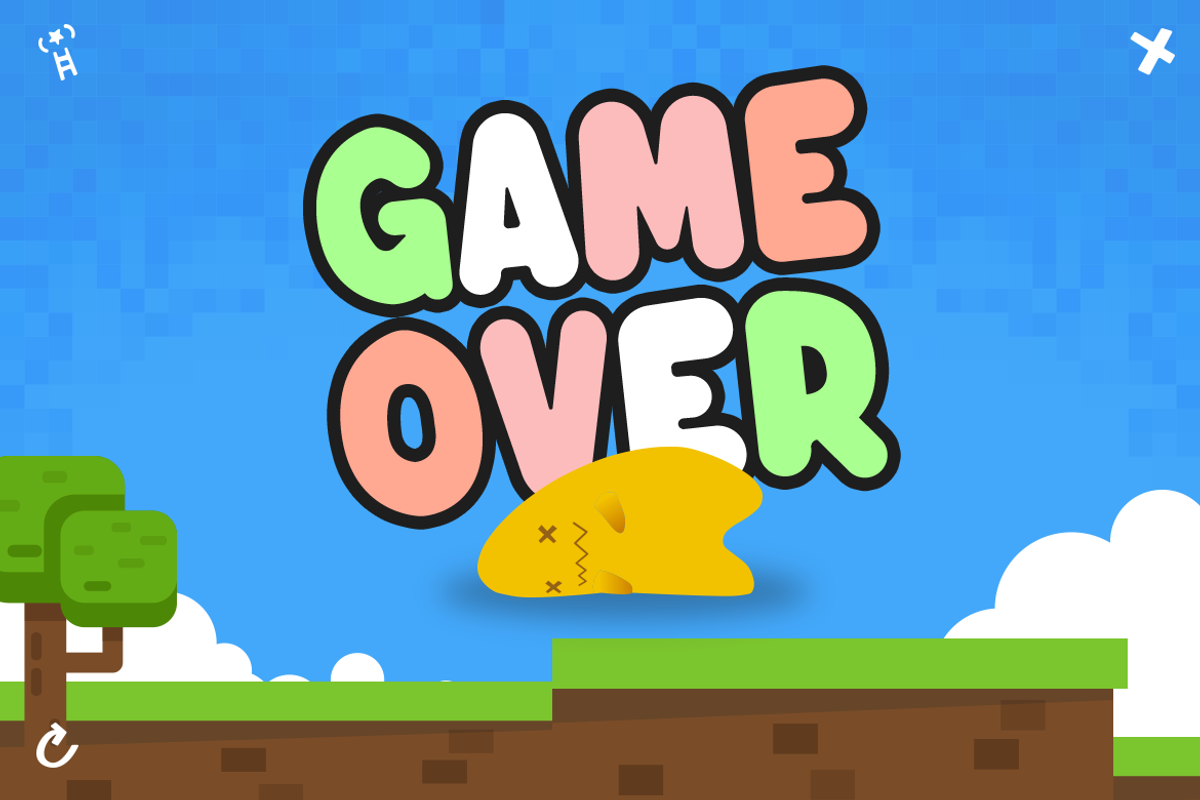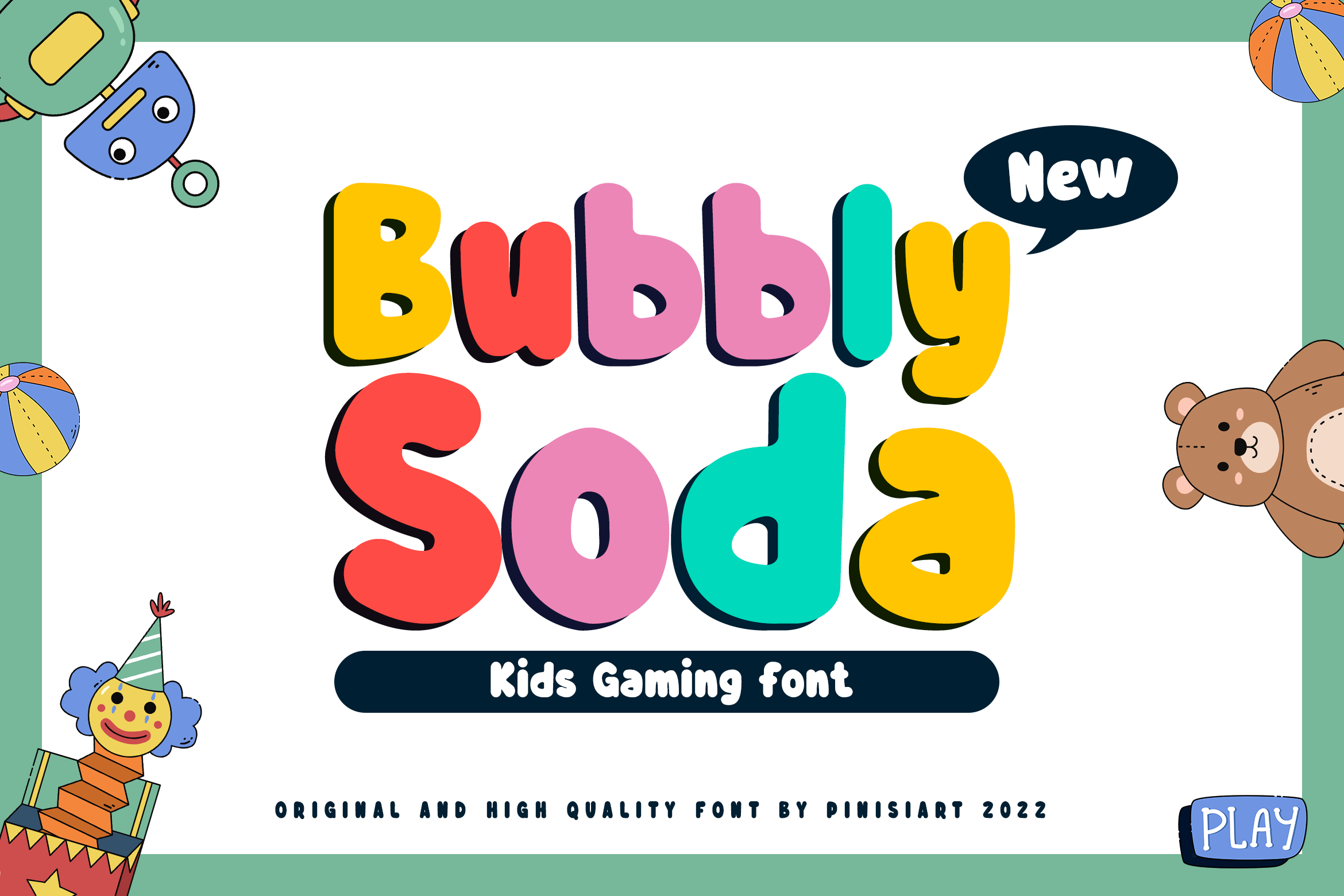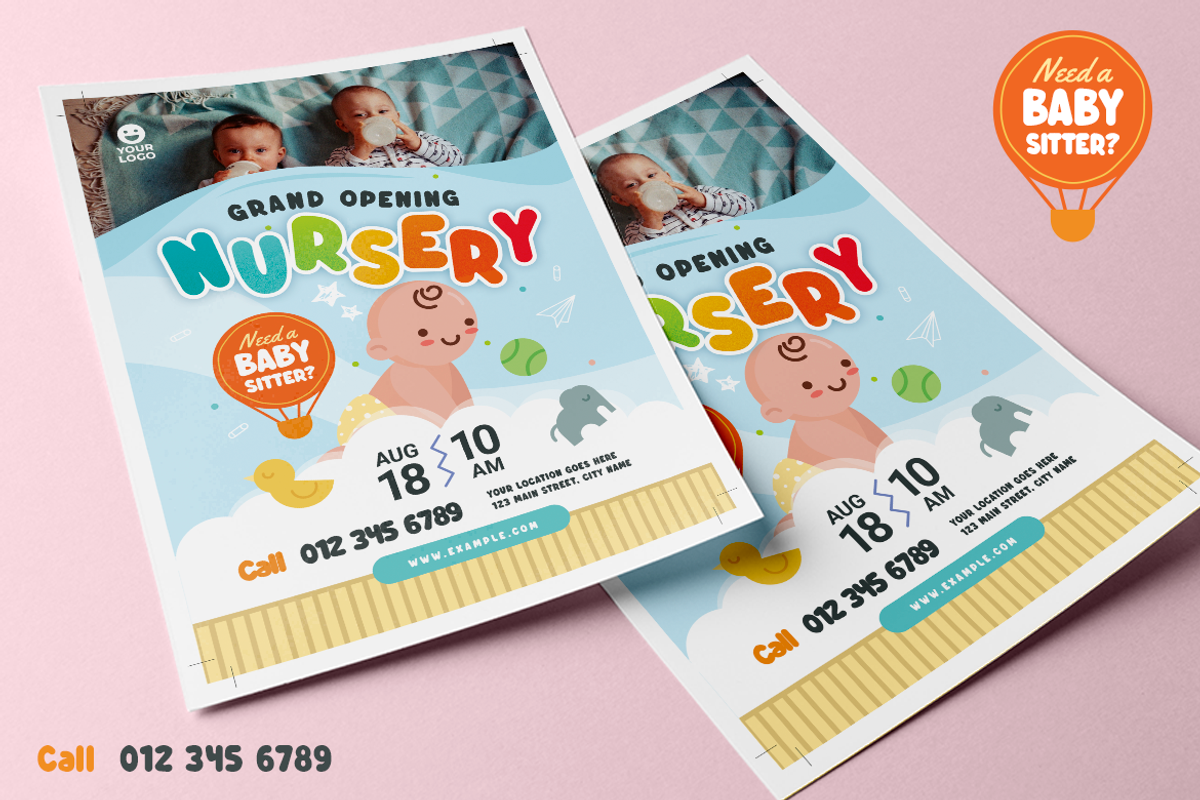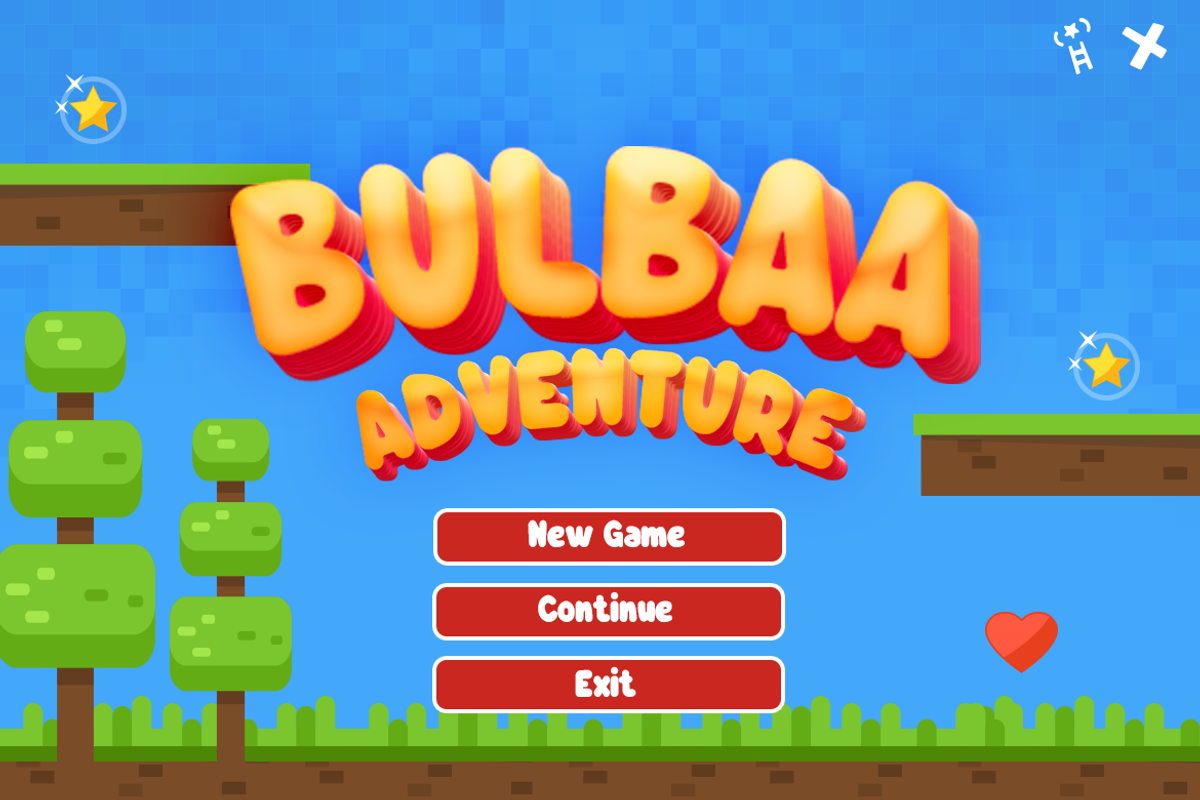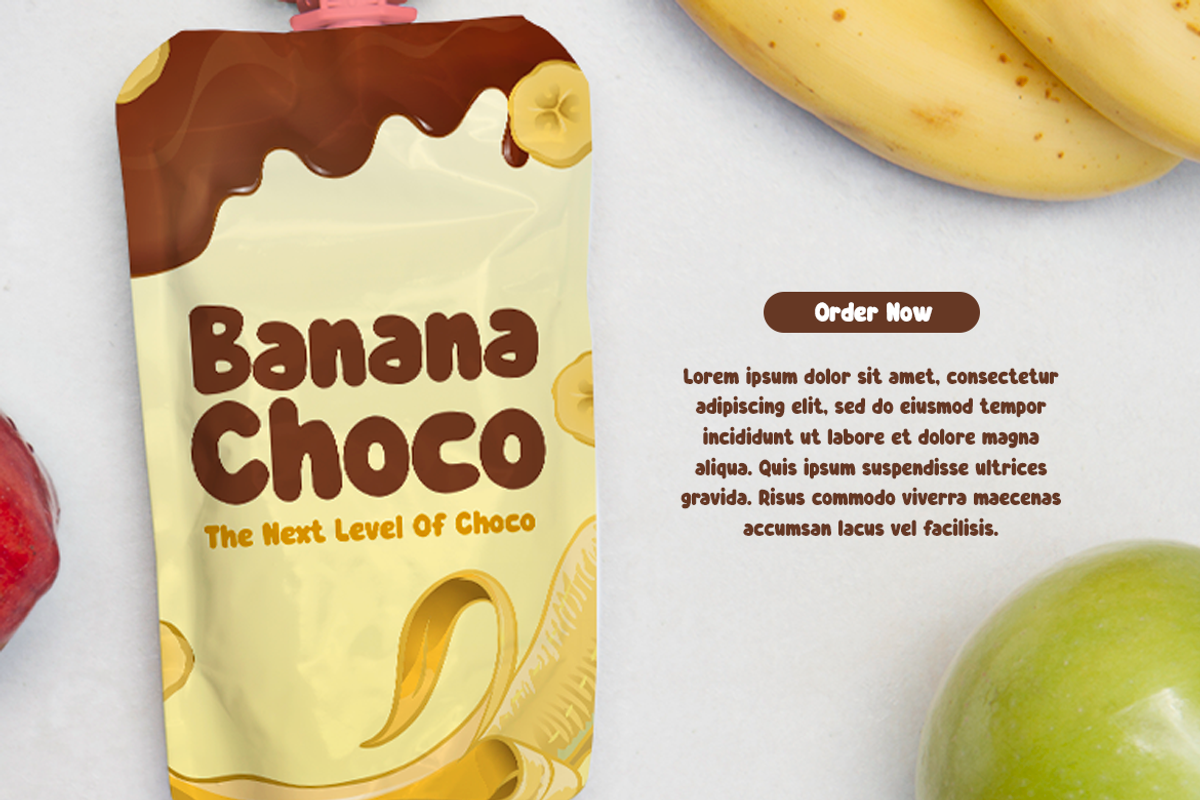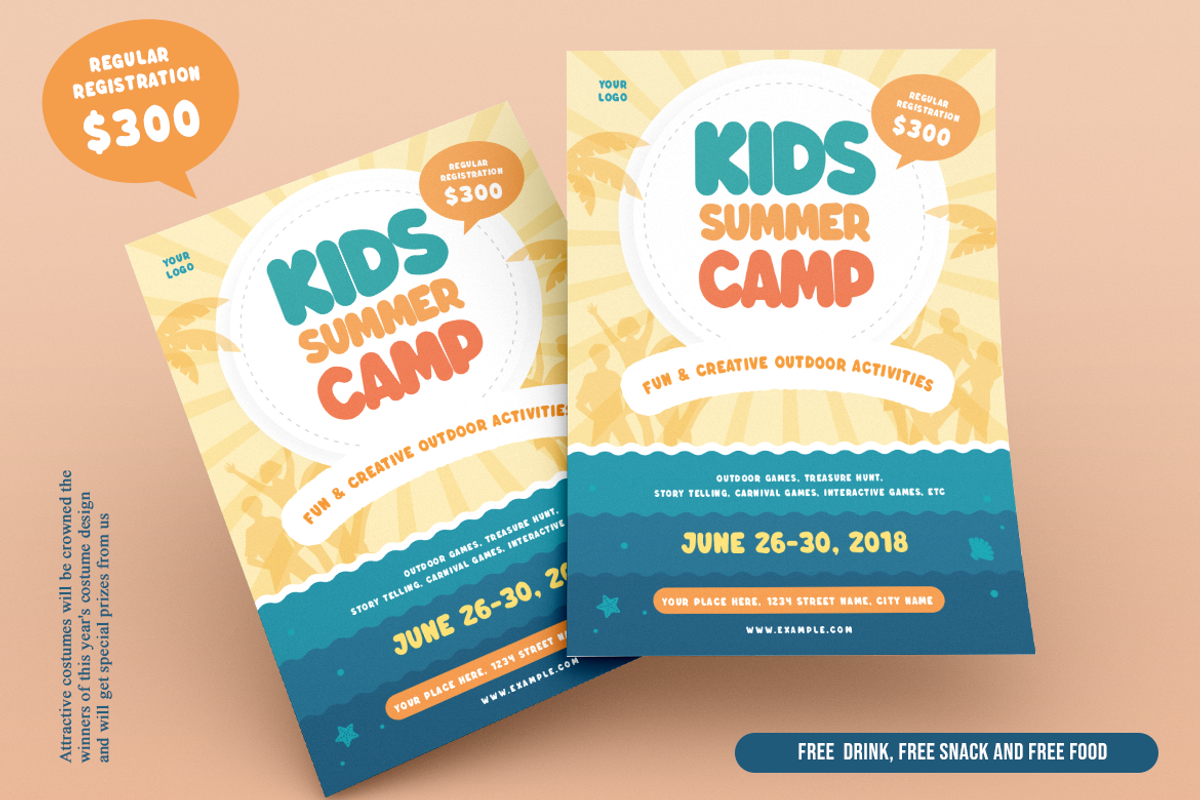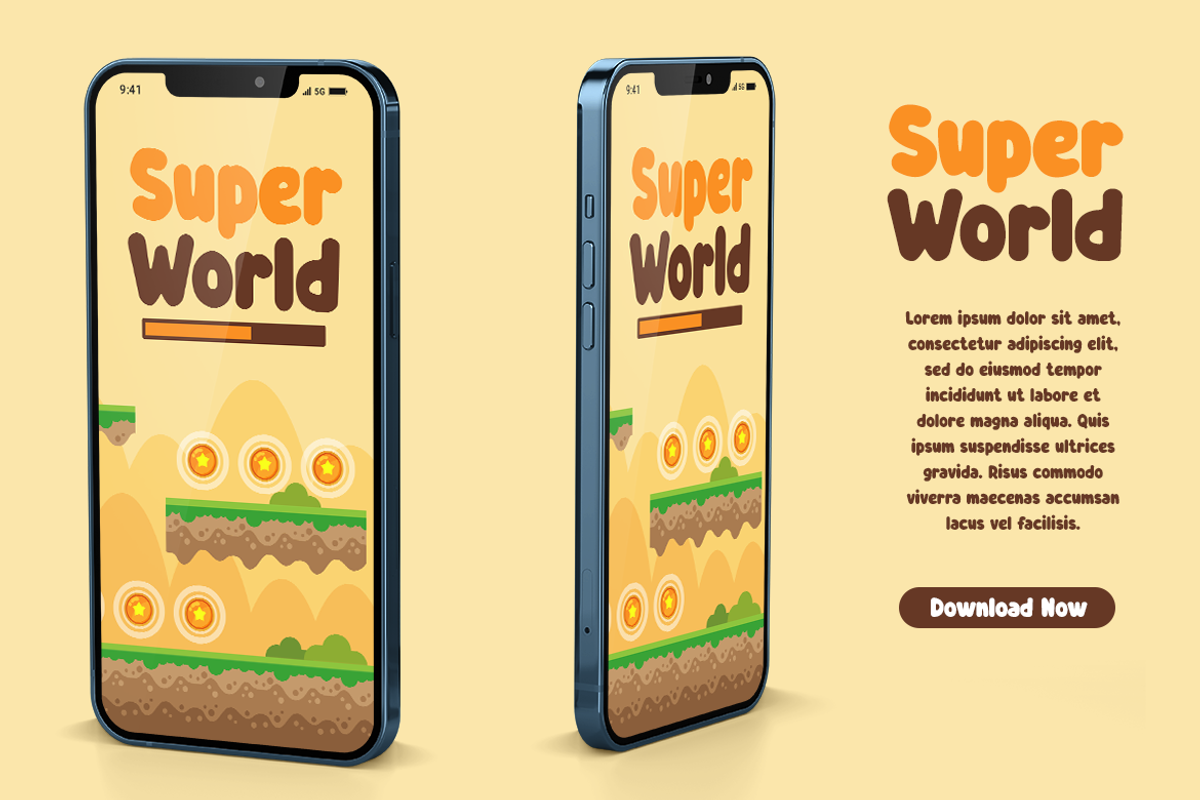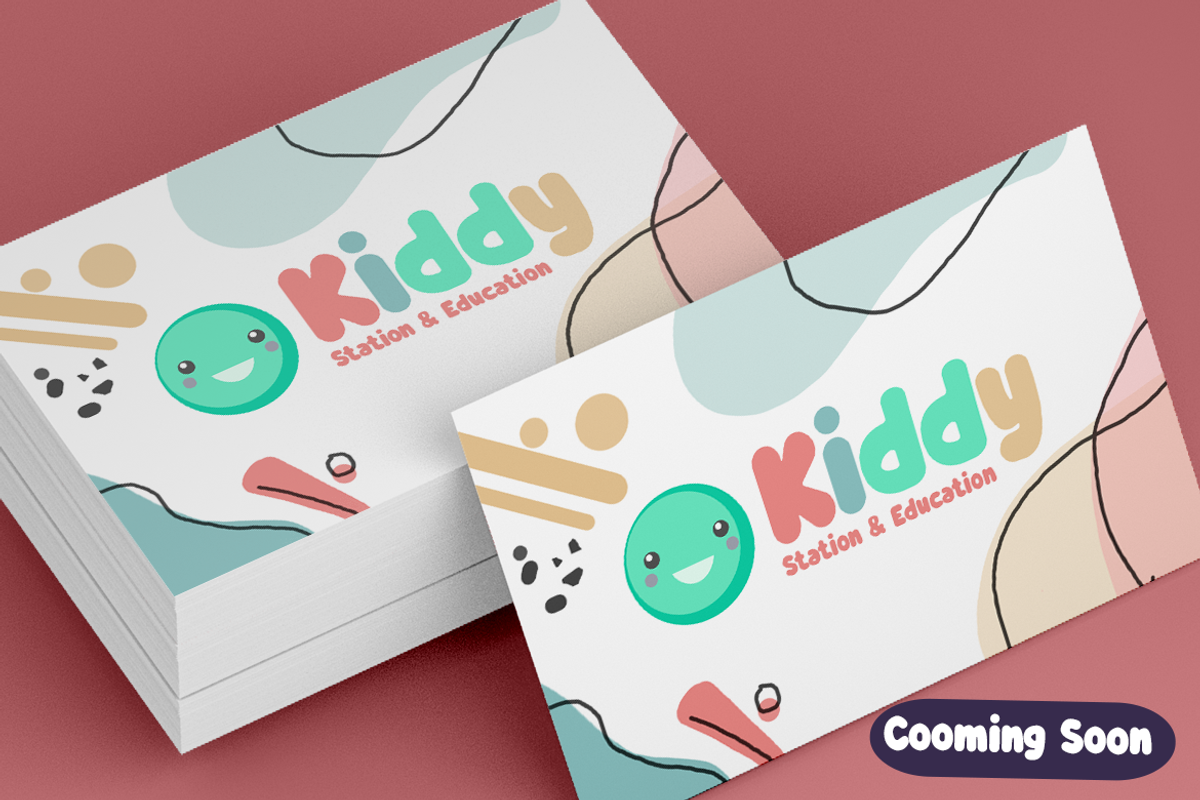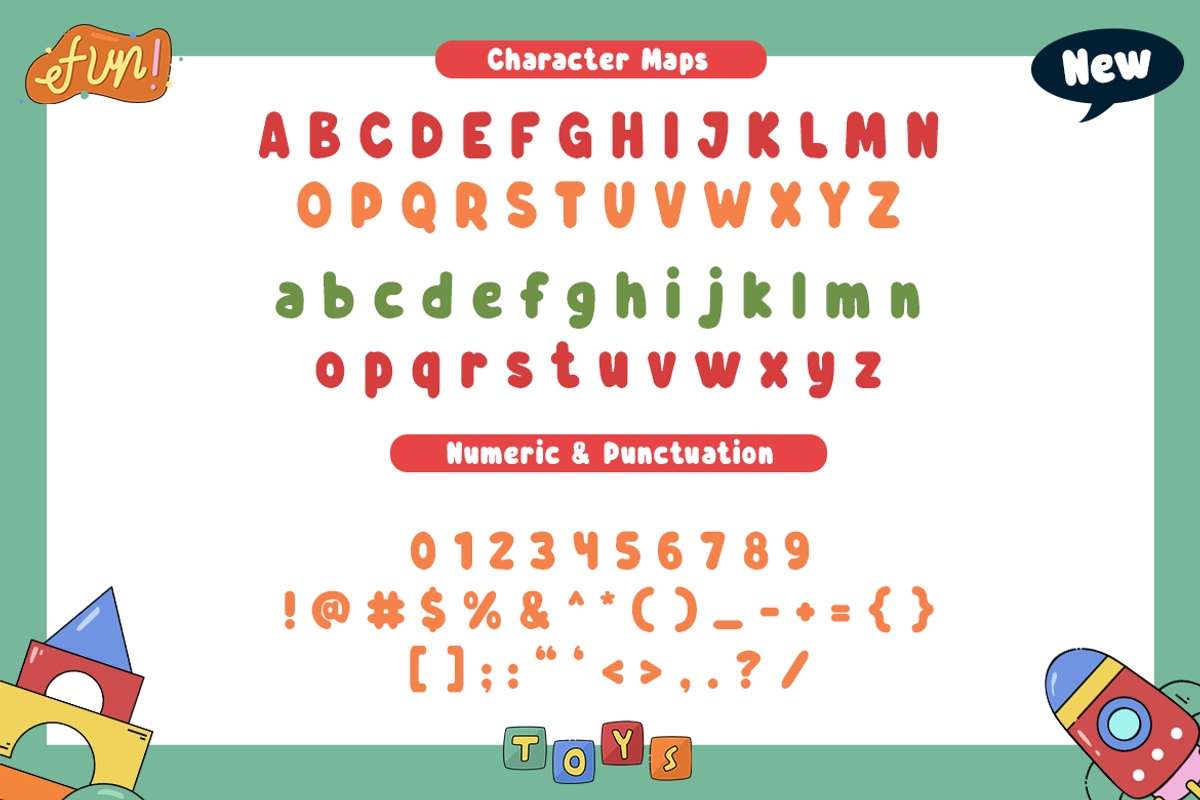
Bubbly Soda – Kids Font
Happiness will spread all over the world when Bubbly Soda is used as the text.
Suit perfectly for kids themes books market, online games, stationary, school supplies font, poster, birthday invitation, youtube covers, youtube thumbnails, social media page covers, and so on…